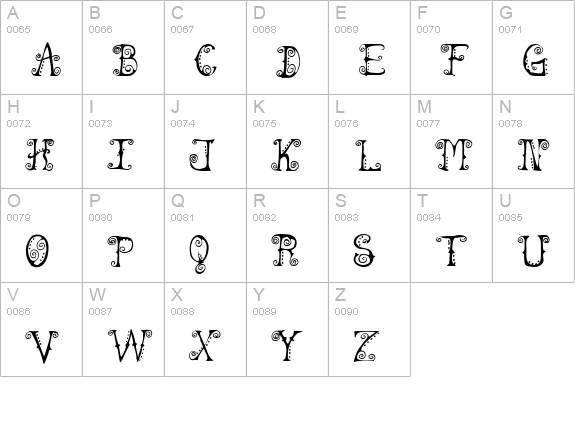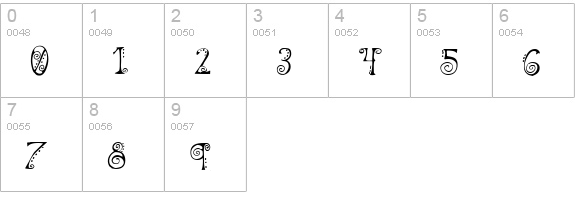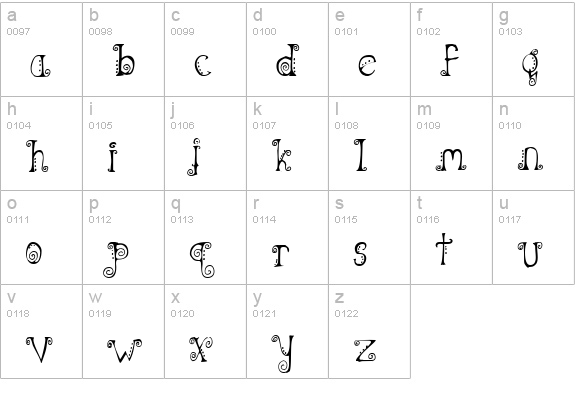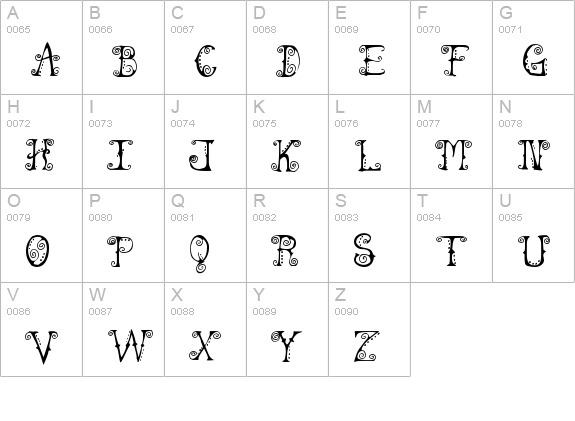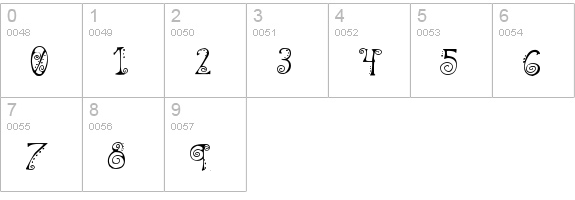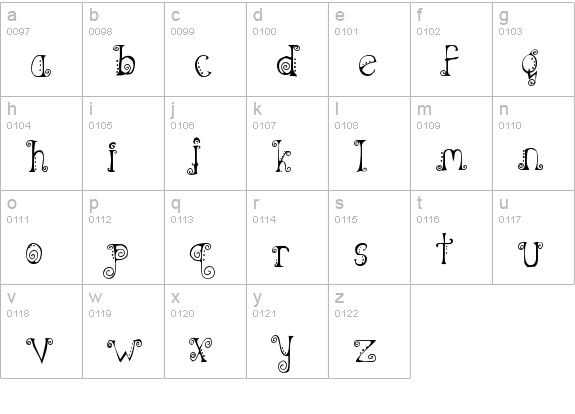
Spahrty Girl Font Details
Introducing Spahrty Girl font, a breathtakingly beautiful and whimsically elegant typeface that will add a touch of charm and grace to any creative project. With its intricate curves and delicate strokes, Spahrty Girl embodies the essence of femininity and sophistication. This enchanting font captures the essence of a confident and modern woman, exuding a sense of empowerment and style. Whether you're designing a logo, creating stunning invitations, or crafting captivating social media posts, Spahrty Girl will elevate your designs to new levels of elegance. But what sets Spahrty Girl apart from the rest is not only its stunning aesthetics but also its accessibility. We believe that creativity should be freely expressed, which is why we are thrilled to offer this incredible font for free download at FontsMarket.com. Yes, you read that right - Spahrty Girl is available to you at absolutely no cost! Unleash your creativity and explore the endless possibilities that Spahrty Girl has to offer. Whether you're a professional designer or a passionate hobbyist, this font will inspire you to create extraordinary works of art. From branding projects to wedding stationery, this font will effortlessly transform your designs into masterpieces. So, what are you waiting for? Download Spahrty Girl font today and discover just how effortlessly it can elevate your creative endeavors. Let your imagination run wild with this stunning typeface that embraces the true essence of femininity. Remember, it's free and readily available at FontsMarket.com, waiting to be unlocked by your artistic genius.